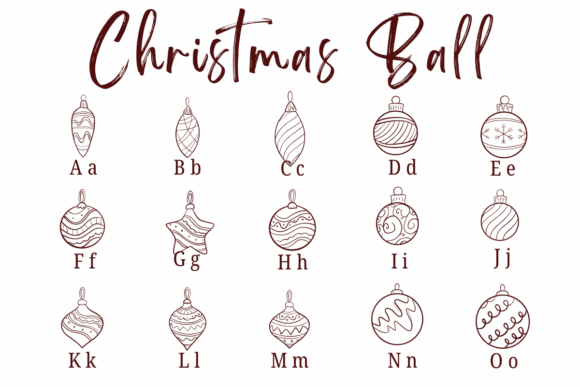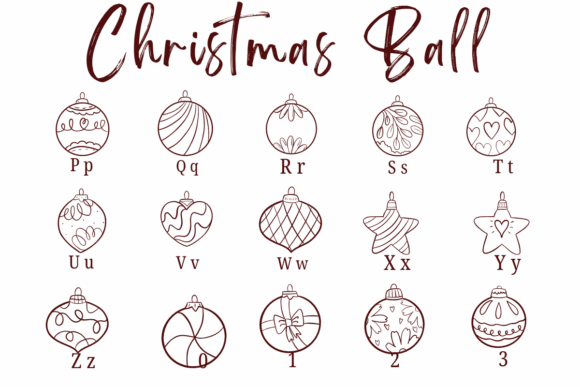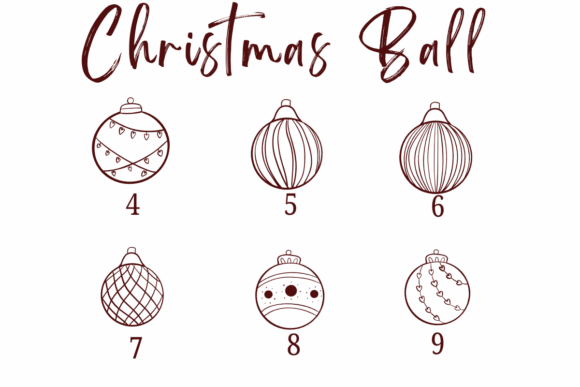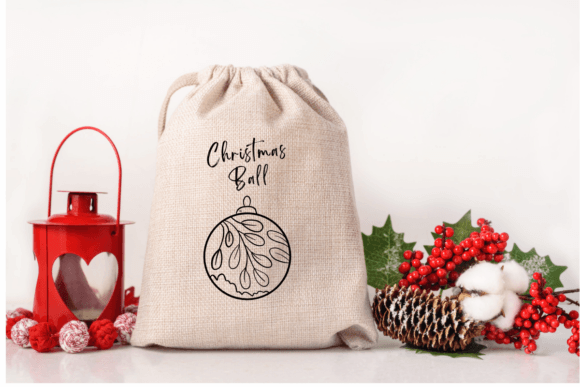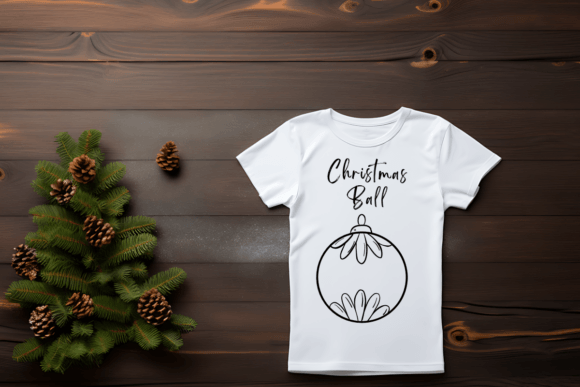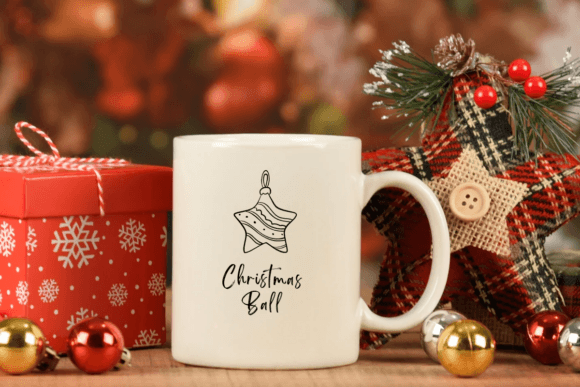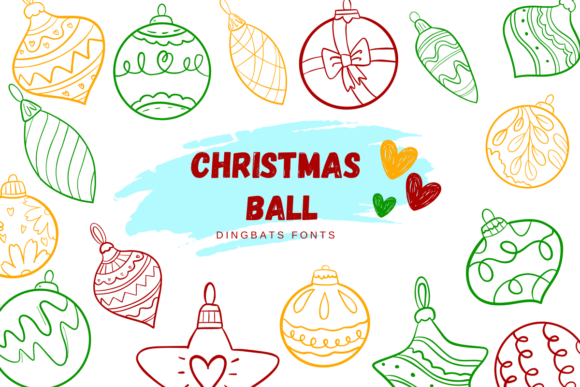
Deck the Halls with the Christmas Ball Font: A Festive Dingbat Font for Designers and Crafters
The holiday season is upon us, and what better way to get into the spirit than with a festive font that’s sure to add some sparkle to your designs? Look no further than the Christmas Ball font, a fun dingbat font featuring decorative Christmas ornaments that are sure to bring a touch of holiday cheer to your projects.
What is the Christmas Ball Font?
The Christmas Ball font is a unique and playful dingbat font that includes a wide variety of images of Christmas baubles and holiday-themed decorations. From snowflakes and holly leaves to Christmas trees and stockings, this font has everything you need to add a festive touch to your designs. Whether you’re a designer, crafter, or DIY enthusiast, the Christmas Ball font is the perfect way to get into the holiday spirit and add some personality to your projects.
Key Features of the Christmas Ball Font
- Variety of Images: The Christmas Ball font includes a wide range of images, from simple Christmas baubles to more complex holiday-themed decorations.
- Festive Flair: The Christmas Ball font is perfect for adding a touch of festive flair to your designs, whether you’re creating holiday cards, decorations, or gifts.
- Scalable: The font is scalable, making it perfect for use on a variety of projects, from small crafts to large-scale designs.
Uses for the Christmas Ball Font
The Christmas Ball font is perfect for a wide range of projects, including:
- Holiday Cards: Add a touch of festive flair to your holiday cards with the Christmas Ball font.
- Decorations: Use the font to create custom decorations, such as garlands, gift tags, and more.
- Gifts: Add a personal touch to your gifts with custom gift tags, wrapping paper, and more.
- Digital Designs: Use the font in your digital designs, such as social media graphics, blog posts, and more.
Tips for Using the Christmas Ball Font
Here are a few tips for getting the most out of the Christmas Ball font:
- Experiment with Different Sizes: The font is scalable, so experiment with different sizes to find the perfect fit for your project.
- Combine with Other Fonts: Combine the Christmas Ball font with other fonts to create a unique and eye-catching design.
- Use in Combination with Images: Use the font in combination with images to create a festive and visually appealing design.
The Christmas Ball font is a fun and festive dingbat font that’s perfect for designers, crafters, and DIY enthusiasts. With its wide range of images and easy-to-use design, this font is sure to add a touch of holiday cheer to your projects. Whether you’re creating holiday cards, decorations, gifts, or digital designs, the Christmas Ball font is the perfect way to get into the holiday spirit and add some personality to your work.